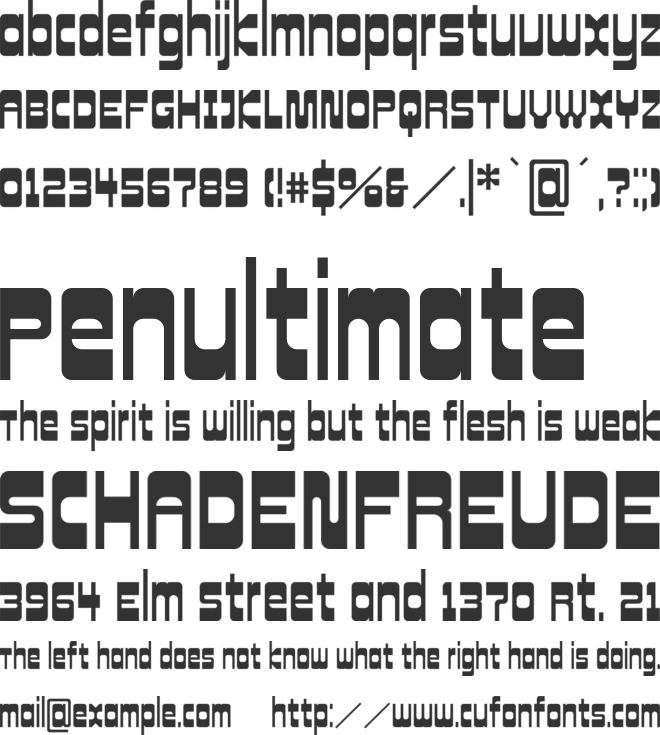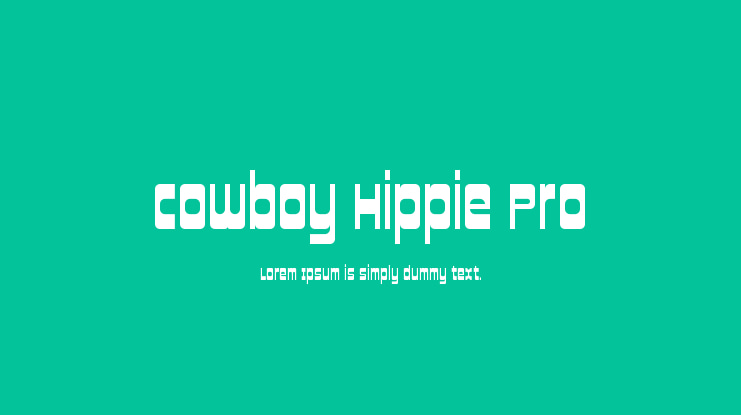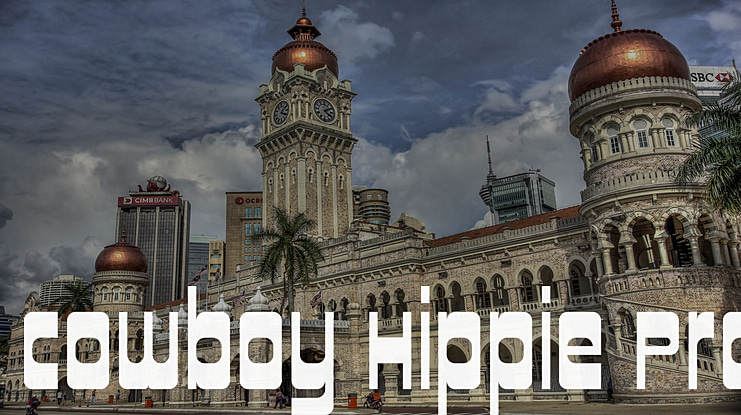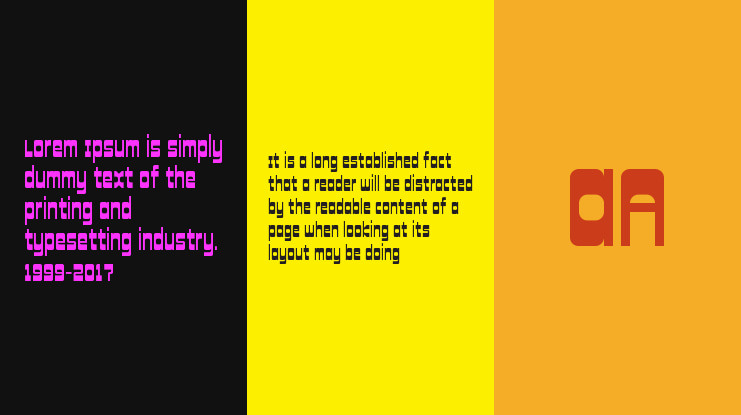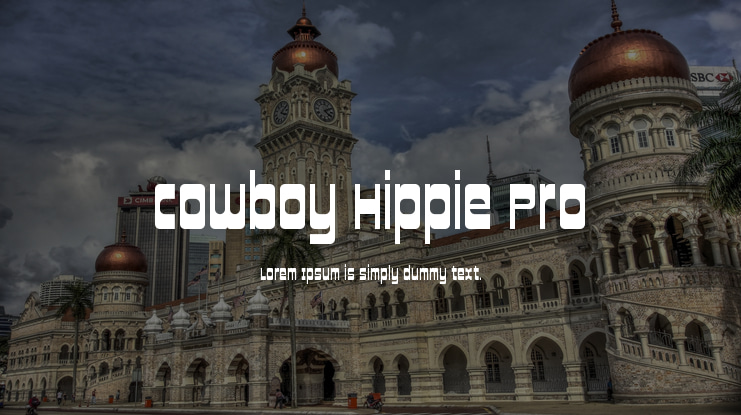
Inspired by and adapted from Stretto from Canada Type - which again was inspired and expanded from Sintex by Aldo Novarese.
This font was originally made with FontStruct but this Pro version have cleaned up outlines, corrected spacing, and added kerning... Also includes an alternate "a", available via your programs' glyph palette or using the OpenType functions "Stylistic Alternates"/"ss01".